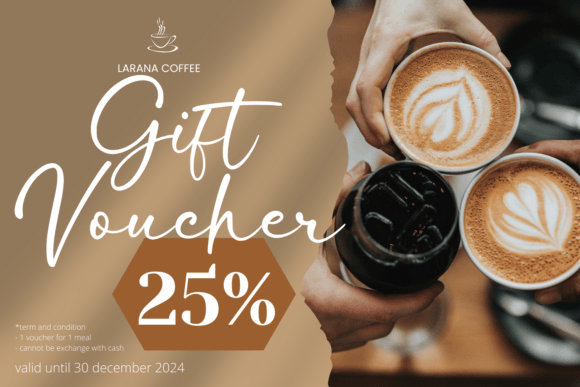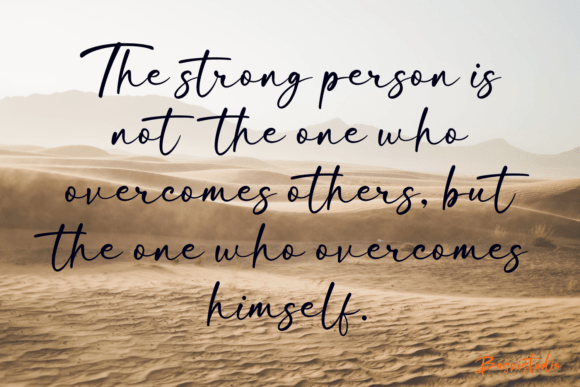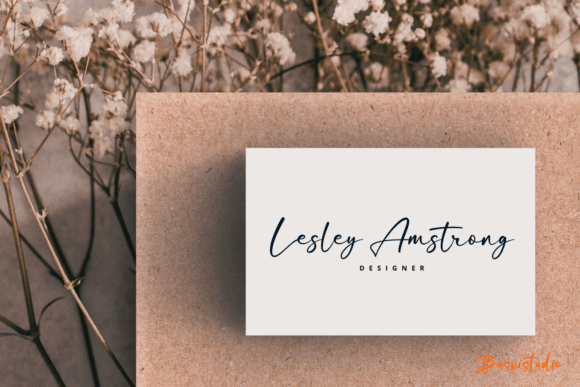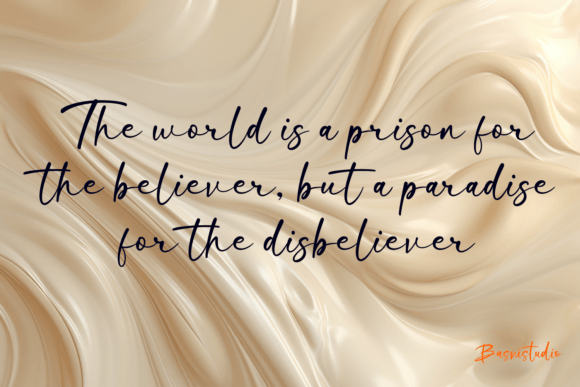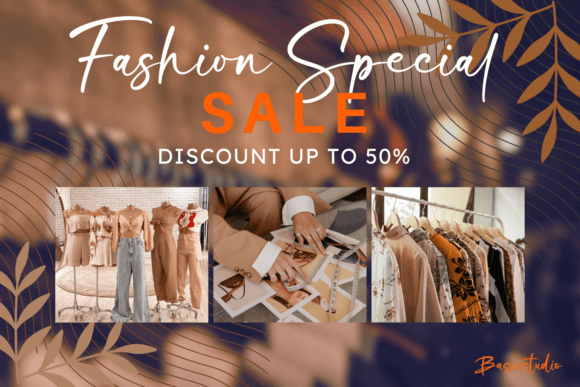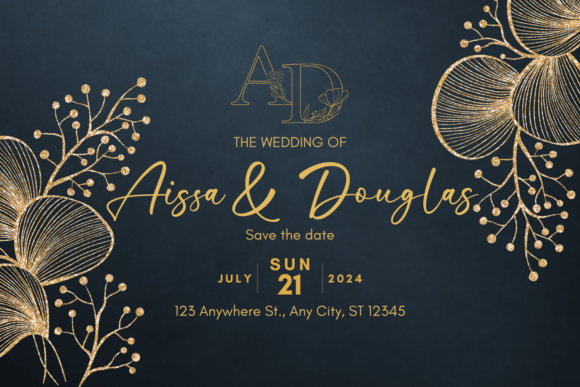
Cisalack Signature Font: Elevate Your Designs with Elegance and Precision
In the world of typography, a font can make or break a design. For designers and crafters seeking to add a touch of sophistication and natural elegance to their work, Cisalack Signature Font is an exceptional choice. This beautifully crafted font is designed to bring a sense of refinement and precision to various design projects, including branding, websites, and editorial designs.
What Makes Cisalack Signature Font Stand Out?
Cisalack Signature Font is not just another font; it’s a design element that can elevate your work to new heights. Here are some of its standout features:
- Natural Elegance: The font is crafted with a keen eye for detail, ensuring that every letter and character exudes a sense of natural elegance. This makes it perfect for designs where sophistication and refinement are key.
- Precision: Precision is at the heart of Cisalack Signature Font. Its clean lines and well-defined characters make it highly legible, ensuring that your message is conveyed clearly and effectively.
- Comprehensive Character Set: The font includes all characters, ensuring that you have everything you need to create comprehensive and cohesive designs.
- Multilingual Support: In today’s globalized world, multilingual support is crucial. Cisalack Signature Font offers this, making it an excellent choice for international brands and projects.
- Punctuation and Ligatures: The inclusion of punctuation and ligatures adds depth and versatility to the font, allowing for more creative freedom in your designs.
Applications of Cisalack Signature Font
The versatility of Cisalack Signature Font makes it suitable for a wide range of applications. Here are some of the areas where it truly shines:
- Branding: For brands looking to establish a sophisticated and elegant image, Cisalack Signature Font can be a valuable asset. It’s perfect for logos, business cards, and other branding materials.
- Websites: With the increasing importance of digital presence, having a font that works well on both desktop and mobile devices is crucial. Cisalack Signature Font’s legibility and elegance make it an excellent choice for website designs.
- Editorial Designs: For editorial projects such as magazines, newspapers, and books, the font’s precision and elegance can add a significant layer of sophistication.
Tips for Using Cisalack Signature Font Effectively
To get the most out of Cisalack Signature Font, consider the following tips:
- Pair it Wisely: When pairing Cisalack Signature Font with other fonts, choose ones that complement its elegance and sophistication. A simple sans-serif font for body text can create a nice contrast.
- Experiment with Sizes: Don’t be afraid to experiment with different sizes to find the perfect balance for your design. Cisalack Signature Font’s legibility ensures it will look good in various sizes.
- Utilize Ligatures: Take advantage of the ligatures included with the font to add a unique touch to your designs.
Cisalack Signature Font is more than just a font; it’s a design tool that can elevate your work to new levels of elegance and sophistication. Whether you’re working on branding, websites, or editorial designs, this font offers the precision, versatility, and natural elegance you need. With its comprehensive character set, multilingual support, punctuation, and ligatures, Cisalack Signature Font is an excellent addition to any designer’s toolkit. Explore its potential and discover how it can transform your designs.